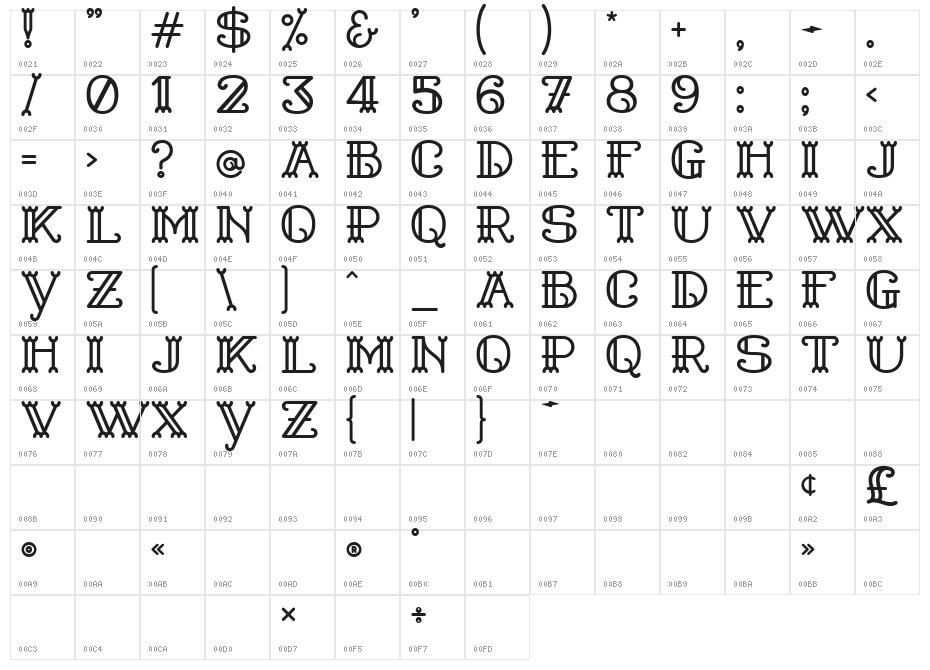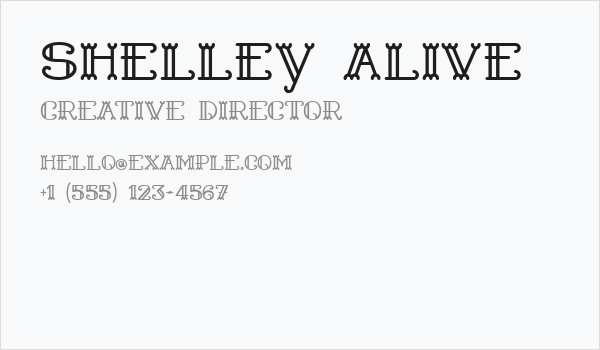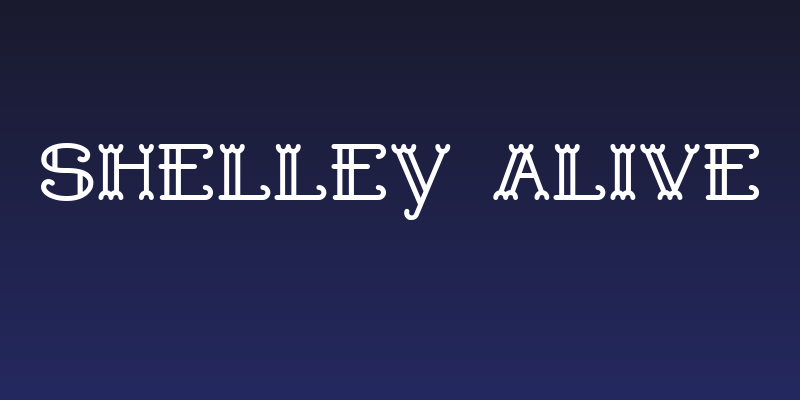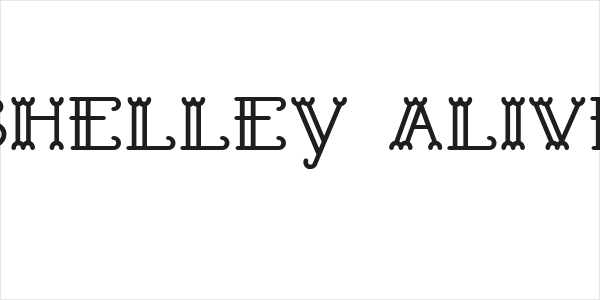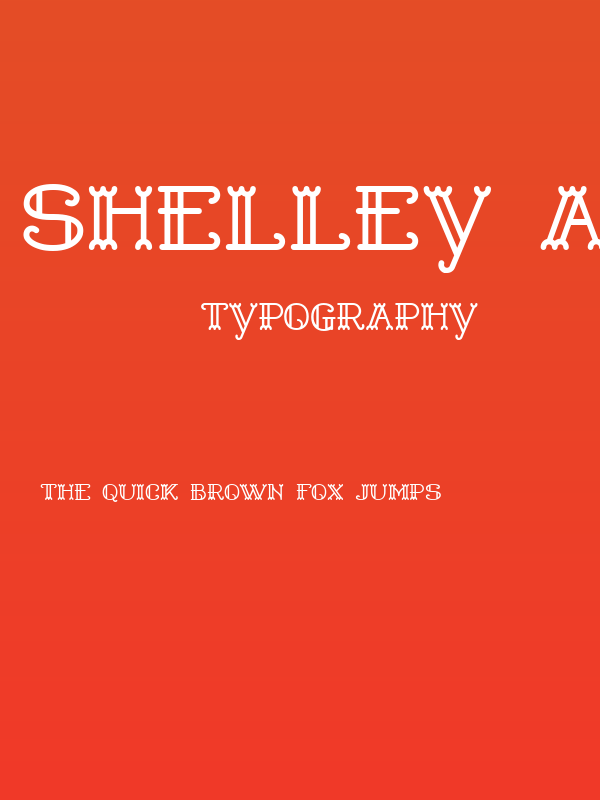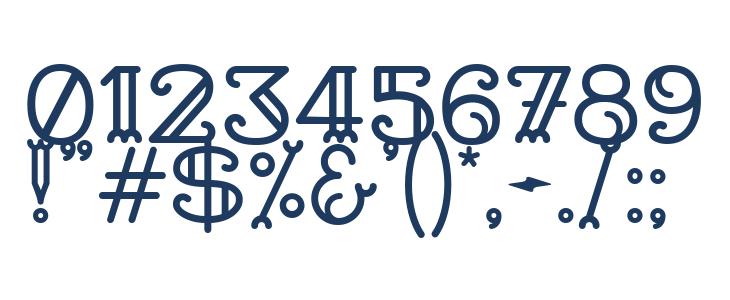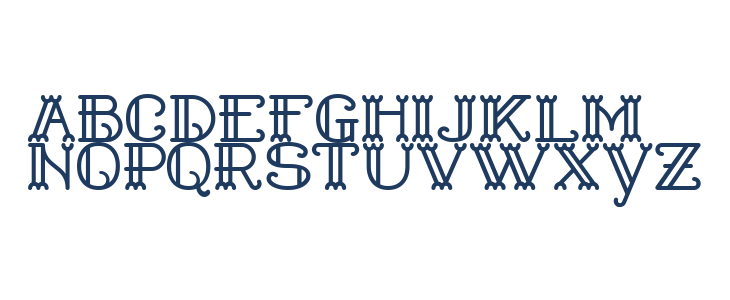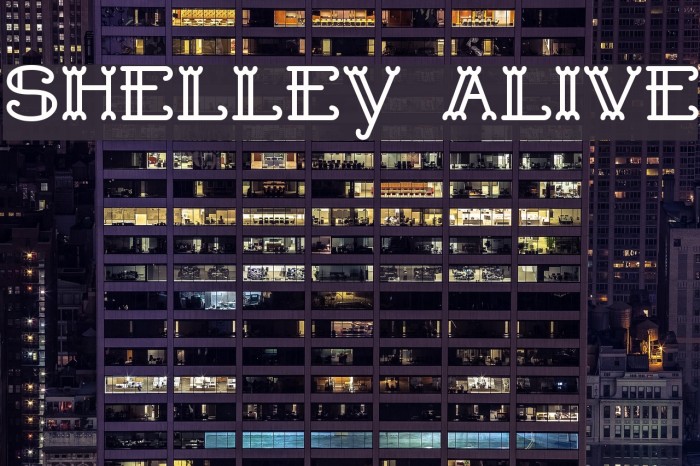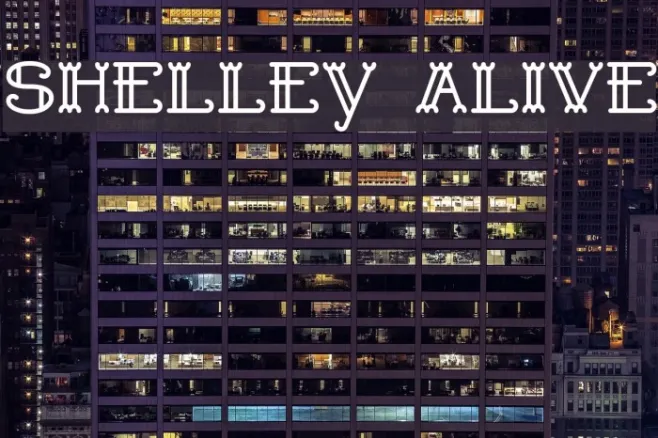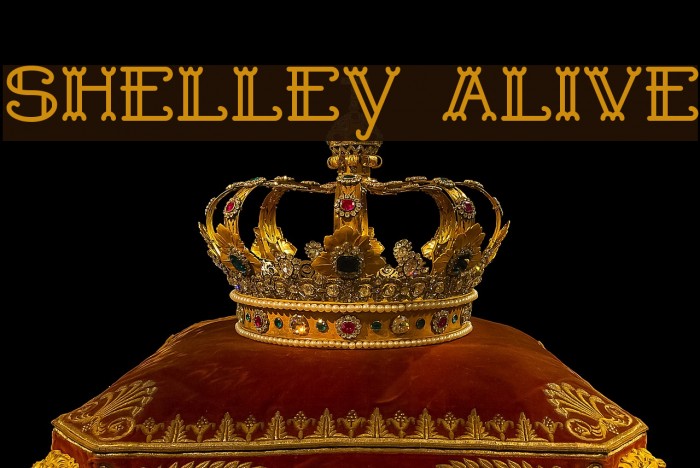
Shelley Alive Font
Shelley Alive Description
This font features a unique and decorative style with ornate elements that give it a distinct and artistic appearance. The uppercase and lowercase letters are designed with intricate details, including small flourishes and embellishments that add a touch of elegance and sophistication. The numerals and special characters maintain this decorative theme, ensuring consistency across all glyphs. The overall design is reminiscent of vintage or classical typography, making it suitable for projects that require a touch of historical charm or artistic flair. The font's intricate details make it stand out, making it ideal for use in headlines, logos, or any design that seeks to capture attention with its ornate style.
| Overall Style | Vintage, Decorative |
| Use Case | Headlines, Logos, Decorative text |
| Proposed Projects | Ideal for wedding invitations, vintage-themed posters, artistic logos, and decorative book covers. |